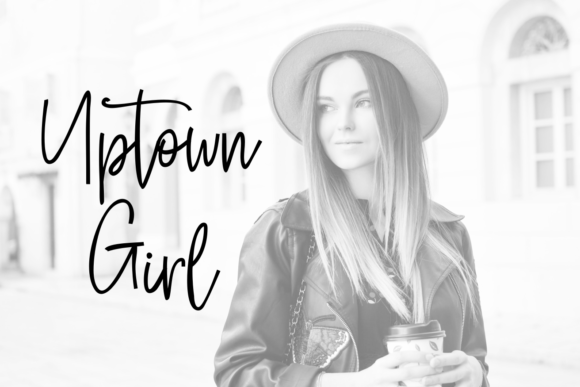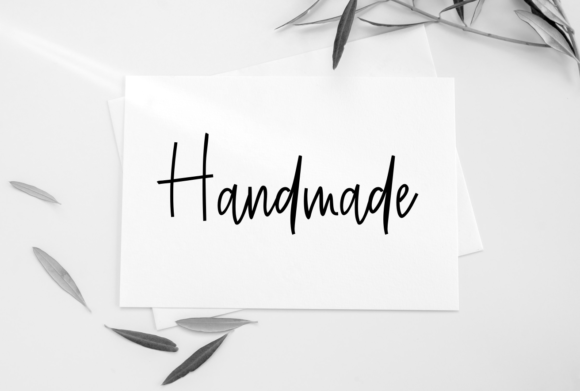
Introducing Farmhouse Signature Font: The Sweet Handwritten Font for Your Design Needs
Are you a designer or crafter looking for a unique and charming font to elevate your creative projects? Look no further than Farmhouse Signature Font, a sweet handwritten font that is designed to produce exceptional outcomes. With its rustic and homespun feel, this font is perfect for adding a personal touch to your designs, making them stand out from the crowd.
What is Farmhouse Signature Font?
Farmhouse Signature Font is a carefully crafted handwritten font that exudes warmth and coziness. Its sweet and elegant strokes make it an ideal choice for a wide range of design applications, from crafting beautiful product labels to creating stunning social media graphics. This font is made with great care to ensure that it meets the needs of designers and crafters who are looking for a high-quality, unique font that can help them establish their brand identity.
Key Features of Farmhouse Signature Font
- Handwritten Style: Farmhouse Signature Font boasts a beautiful handwritten style that adds a personal touch to your designs.
- Unique and Elegant: The font’s unique and elegant strokes make it perfect for creating stunning designs that stand out.
- Versatile: This font can be used for a wide range of design applications, from product labels to social media graphics.
- Easy to Read: The font is designed to be easy to read, making it perfect for body text and headings.
How to Use Farmhouse Signature Font
Farmhouse Signature Font can be used for writing various kinds of products according to their respective needs. Here are some ideas to get you started:
- Product Labels: Use Farmhouse Signature Font to create beautiful product labels that add a personal touch to your products.
- Social Media Graphics: Create stunning social media graphics using this font to engage with your audience.
- Invitations and Cards: Use Farmhouse Signature Font to create beautiful invitations and cards for special occasions.
- Branding and Packaging: Establish your brand identity using this font for your branding and packaging needs.
Why Choose Farmhouse Signature Font?
There are many reasons why Farmhouse Signature Font stands out from other fonts. Here are a few:
- Unique Style: This font has a unique style that sets it apart from other fonts.
- High-Quality: Farmhouse Signature Font is a high-quality font that is designed to produce exceptional outcomes.
Farmhouse Signature Font is a sweet handwritten font that is perfect for designers and crafters who are looking for a unique and charming font to elevate their creative projects. With its rustic and homespun feel, this font is ideal for adding a personal touch to your designs. Whether you’re creating product labels, social media graphics, or branding and packaging materials, Farmhouse Signature Font is a great choice. So why wait? Download Farmhouse Signature Font today and start creating stunning designs that stand out!